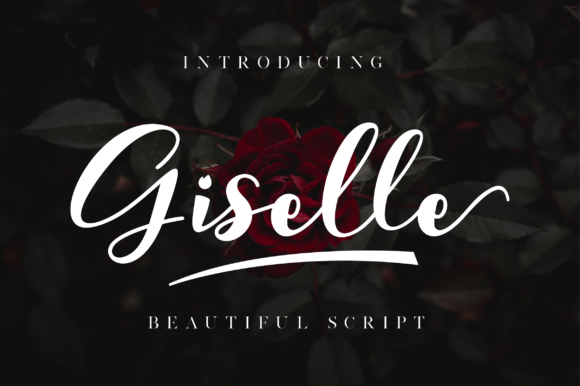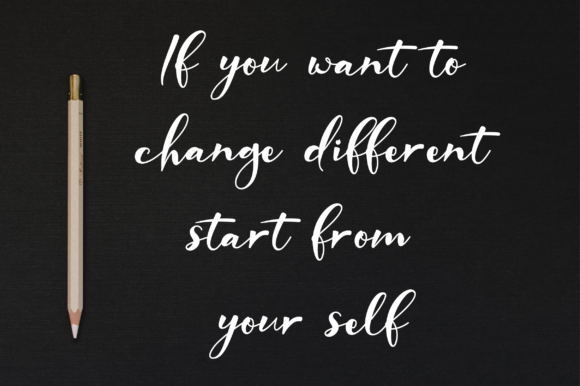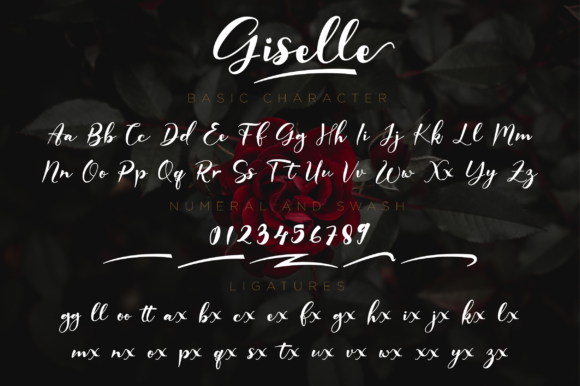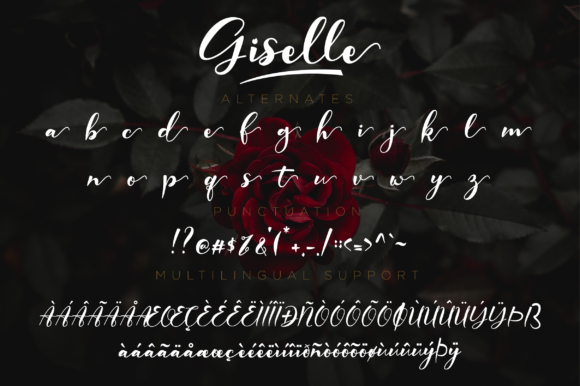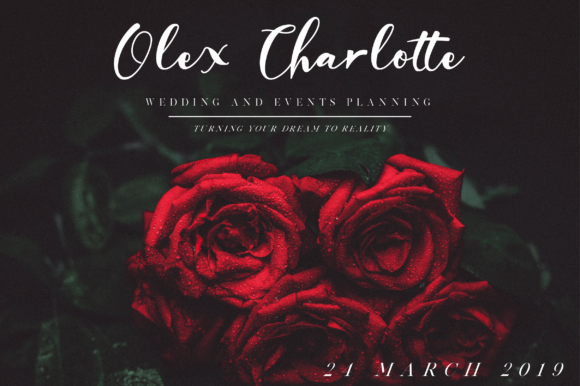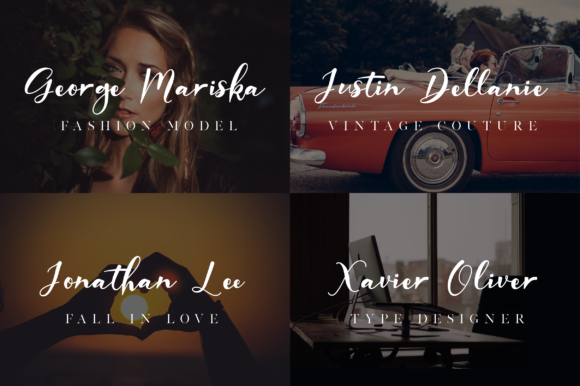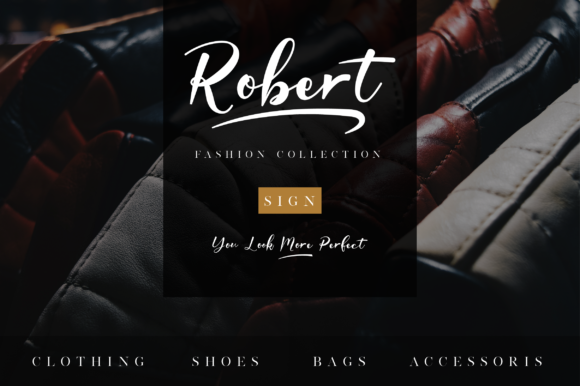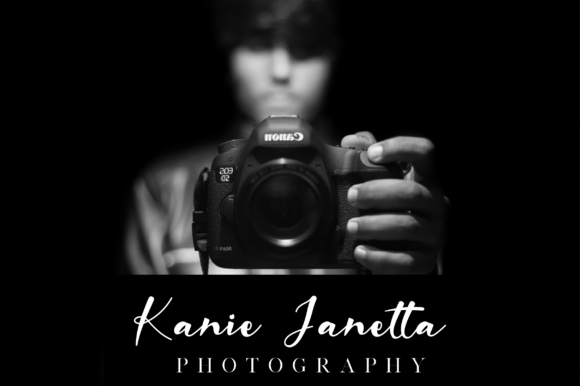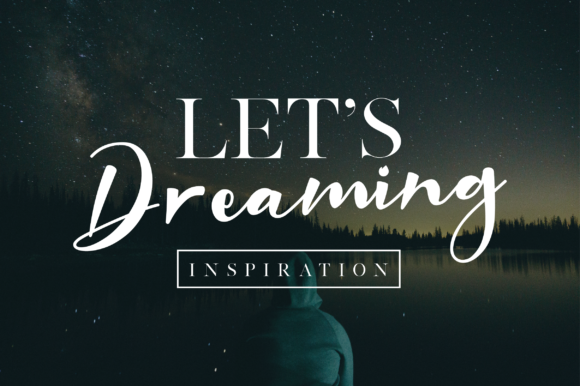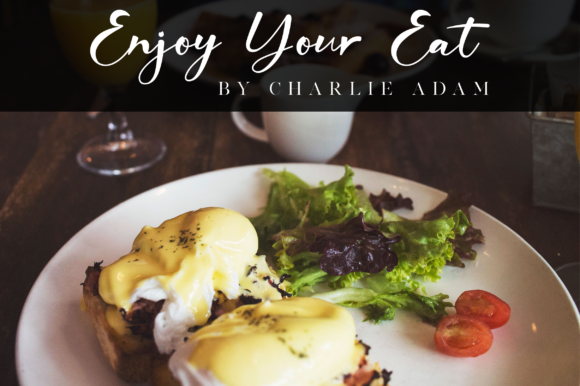
Giselle Font
About Giselle Font
Giselle is a beautiful script font. It has a classy, elegant, and modern look which can be used for logos, branding, invitations, stationary, wedding designs, social media posts, and every other design that needs a handwritten touch.